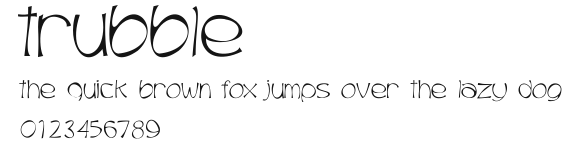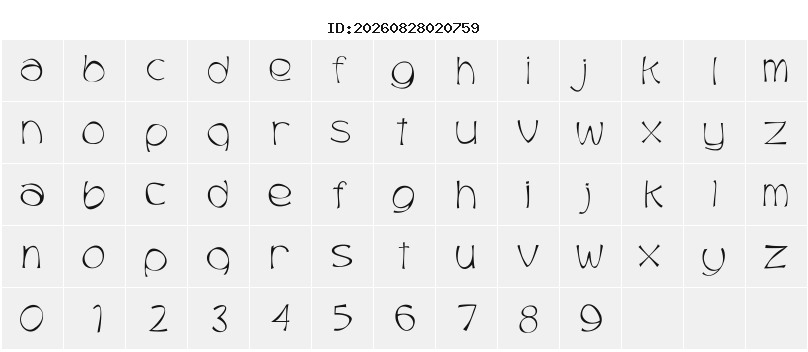
Trubble Preview
• Font Name: Trubble
• Full Font Name: Trubble
About Trubble.ttf
Trubble.ttf is a modern, elegant sans-serif font designed for ultimate readability and visual harmony. Perfect for branding, headlines, web design, and print materials.